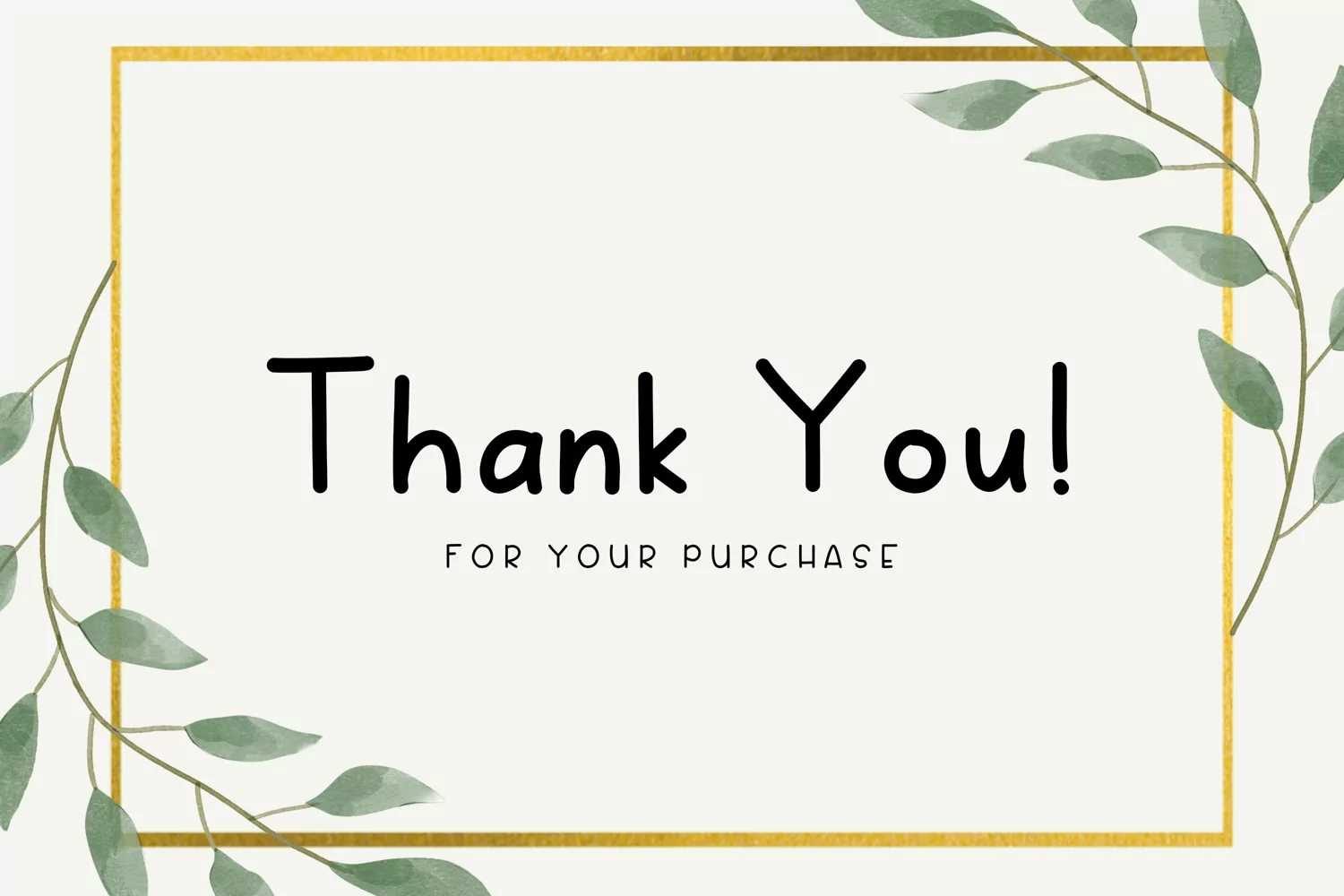
Frosty Bold is a cute and friendly handwritten font. Featuring a curvy, readable and down to earth style, this font will make each of your designs look gorgeous.
FrostyBold